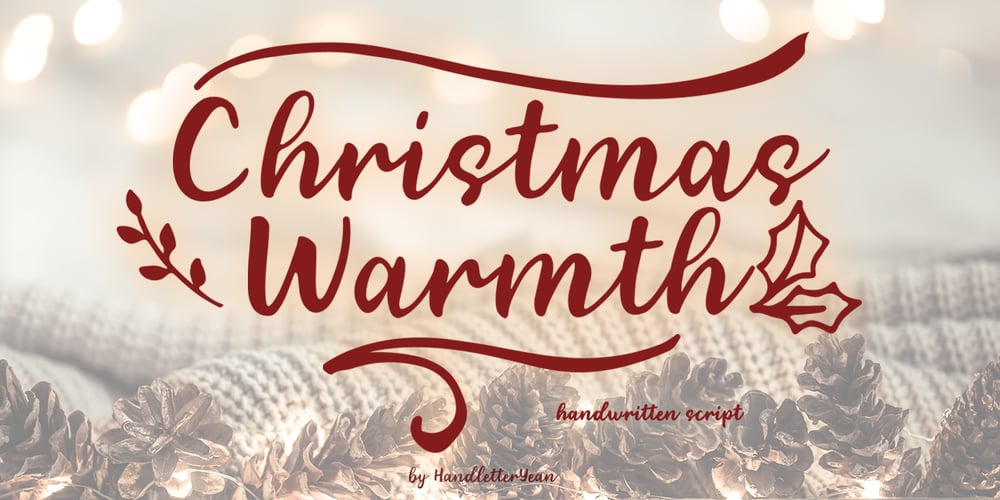
Christmas Warmth Font Family was designed by Yean Aguste and published by HandletterYean. Christmas Warmth contains 4 styles and family package options. This font is made special for the most wonderful time of the year, Christmas. Enjoy the warmth of Christmas with your family and friends by making a simple Christmas design using this font. It’s casual style suitable for your various design needs like greeting cards, posters, invitations, social media posts, advertisements, product packaging, product designs, label, photography, watermark, special event, magazine, web design, etc.To access the alternate glyph, you need a program that supports Open-type features such as Adobe Illustrator CS, Adobe Photoshop CC, Adobe Indesign, and CorelDraw. More information about how to access alternate glyph, check out this link: http://goo.gl/ZT7PqK